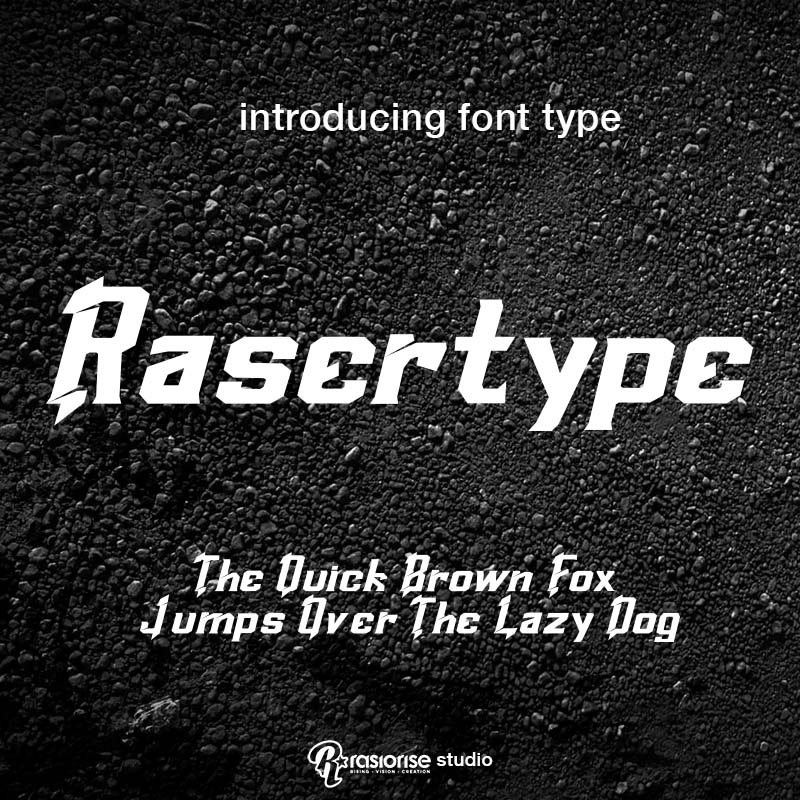
Rasertype Font
Designed by
rasiorise studio
Introduction for Rasertype font is font display great for sport design, illustration rock and custom bold font. available include uppercase and lowercase and number.